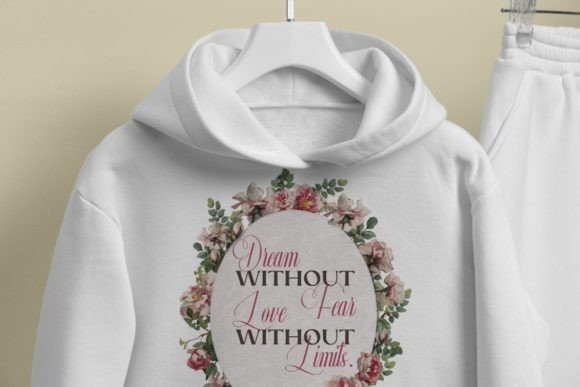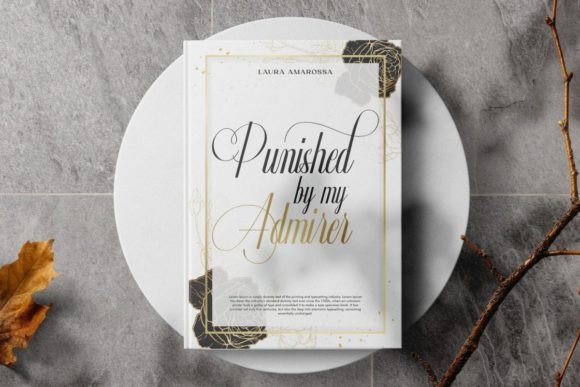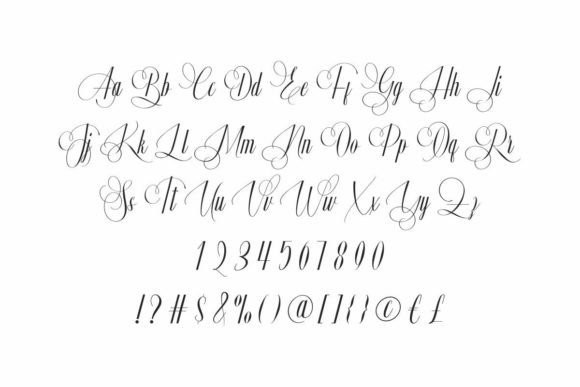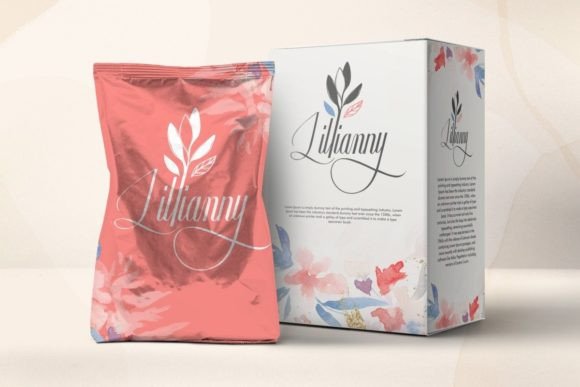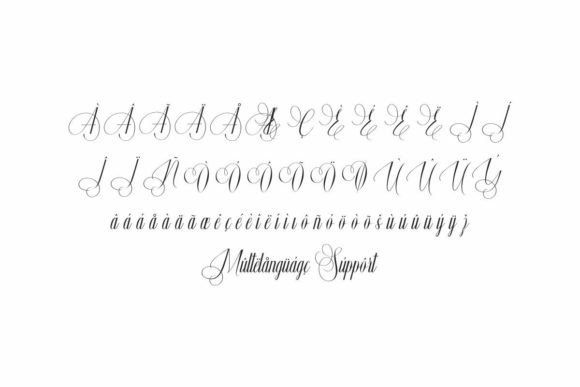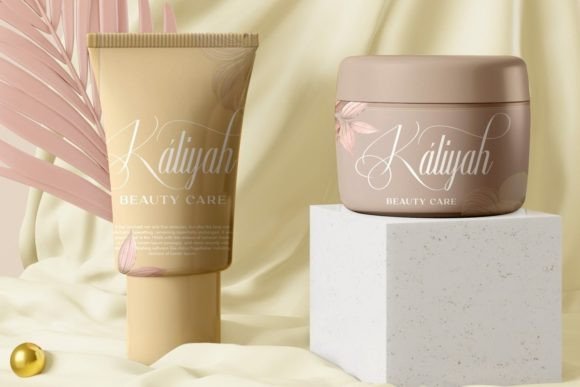
Introduction to Ainsley Blossom Font
Have you ever stared at a blank canvas, searching for the perfect font to bring your creative project to life? I’m sure we’ve all been there, stuck in a design rut, waiting for that elusive spark that sets our imagination ablaze. For designers, the quest for the perfect font can be a daunting task, but what if I told you that your search is over?
Meet the Ainsley Blossom Font, a romantic and sweet handwritten font that’s sure to make your design shine like a diamond. With its high-quality design and PUA encoded features, this font is a game-changer for any creative project. Whether you’re working on an advertisement, a fashion brand, or a beauty product poster, Ainsley Blossom Font is the perfect addition to your design resource.
Key Features of Ainsley Blossom Font
- High-quality, elegant design ideal for creative projects requiring a touch of sophistication.
- Includes a transparent background, allowing for seamless integration into any design resource or creative project.
- Features a unique, hand-crafted design with intricate details and subtle flourishes, setting it apart from other fonts.
- Perfect for use in a variety of creative projects, including wedding invitations, branding materials, and editorial designs.
Honest Review: Ainsley Blossom Font
I recently had the chance to work with the Ainsley Blossom Font, and I must say it’s been a delightful experience. As a designer, I’m always on the lookout for high-quality fonts to enhance my creative projects. The Ainsley Blossom Font definitely delivers.
- ✨ Elegant and whimsical design
- ✨ Transparent background for easy layering
However, I do have a few minor complaints. The font could benefit from more character variations, and some users may find it a bit too ornate for certain projects. Nevertheless, these are minor limitations in an otherwise excellent design resource.
Overall, I’m thoroughly impressed with the Ainsley Blossom Font. It’s a great addition to any designer’s toolkit, and I’m excited to see how it enhances my future creative projects.
Introduction to Ainsley Blossom Font
Ainsley Blossom Font is a high-quality design resource that offers a unique and elegant style, perfect for creative projects. With its transparent background, it’s ideal for various applications, from branding to digital art.
Getting the Most Out of Ainsley Blossom Font
To maximize the effectiveness of Ainsley Blossom Font, consider the following tips:
- Experiment with different font sizes and styles to achieve the desired effect.
- Combine Ainsley Blossom Font with other design elements, such as images and graphics, to create a visually appealing design.
- Use Ainsley Blossom Font in conjunction with other design resources, like templates and graphics, to enhance your creative project.
Ainsley Blossom Font is suitable for a wide range of creative projects, including:
- Digital art and graphics
- Wedding invitations and event planning
- Marketing materials and advertising